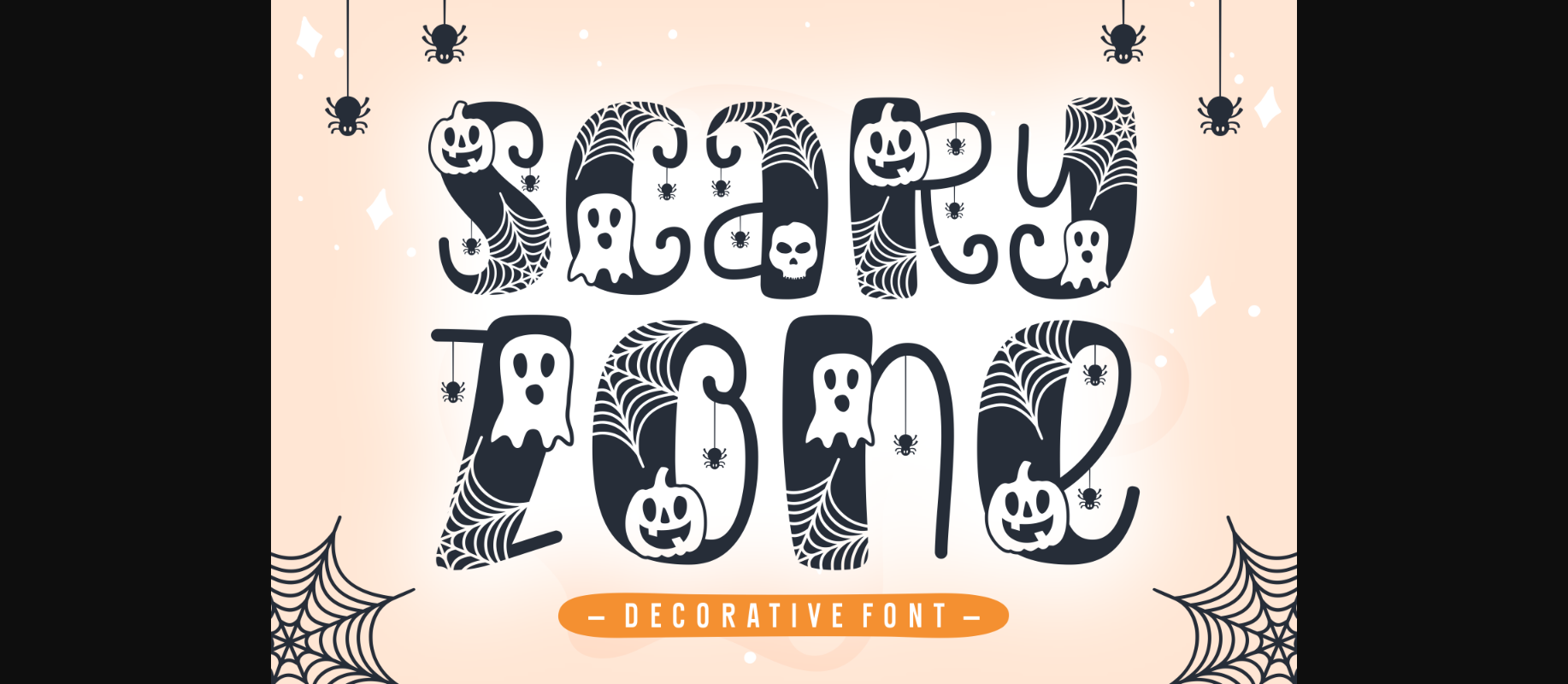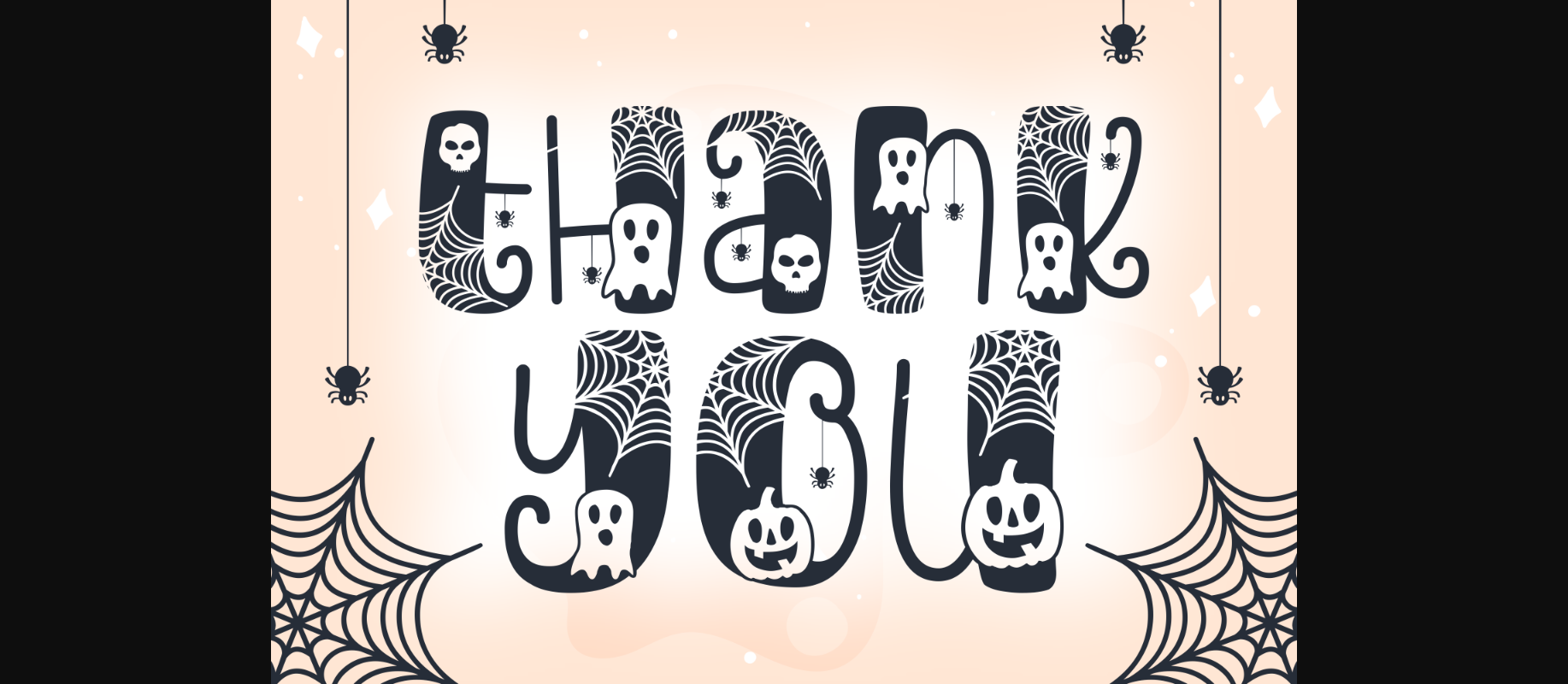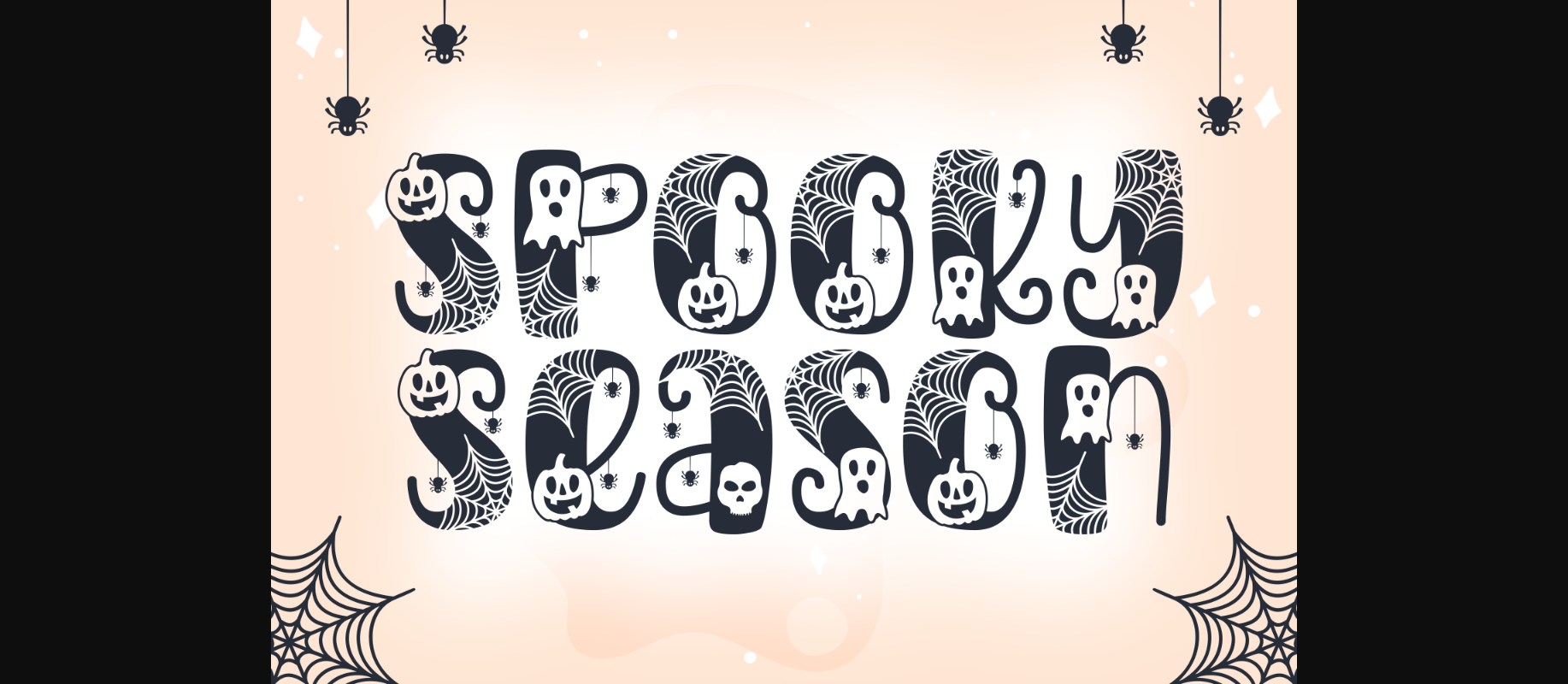
About Scary Zone Font
Get into the Halloween spirit with this display decorative font that is sure to add a touch of fright to your designs. Each letter is intricately crafted with spooky elements, including pumpkins, skulls, spiderwebs, and ghosts. Whether you’re creating party invitations, or posters, or simply want to add some Halloween flair to your projects, this font is perfect for the occasion. Embrace the spookiness and let your creativity run wild with our Halloween-themed font! ???